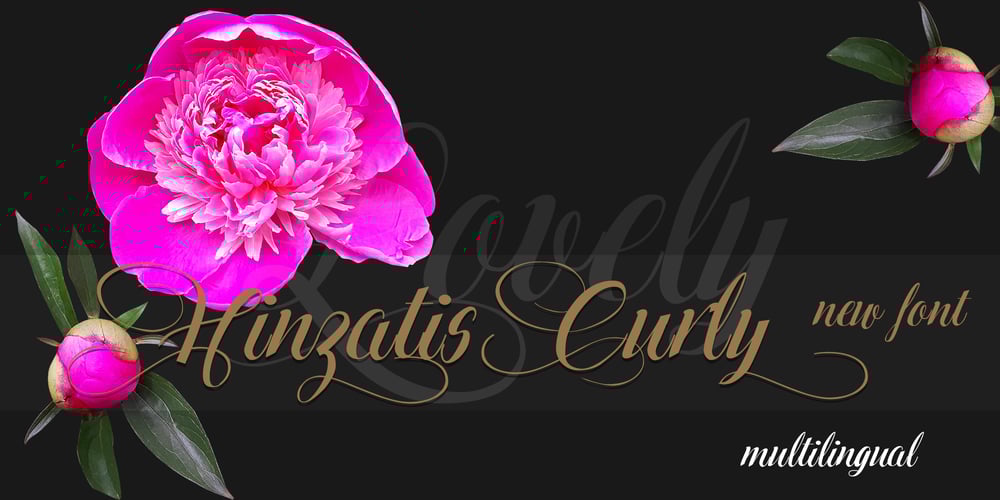
Hinzatis Font Family was designed by Aga Silva and published by Aga Silva. Hinzatis contains 4 styles and family package options. It is up to you how big and voluptuous statement you will be making with this font, as Hinzatis is about old Hollywood glamour and attitude. With lots of options encoded in handy open type files you can easily fine-tune your text for best visual effect. Looks perfect when placed as: titles, headers, labels, names, business cards, just to name a few. Open-type Pro version features 1200 + characters including initial and terminal letters, numerous caps styles, ligatures and alternates. Other versions feature over 1000+ characters and focus mostly on foreign languages with accented letters (incl. Vietnamese); So depending on option you choose you can create realistic and multilingual hand-calligraphy on all of your creations!